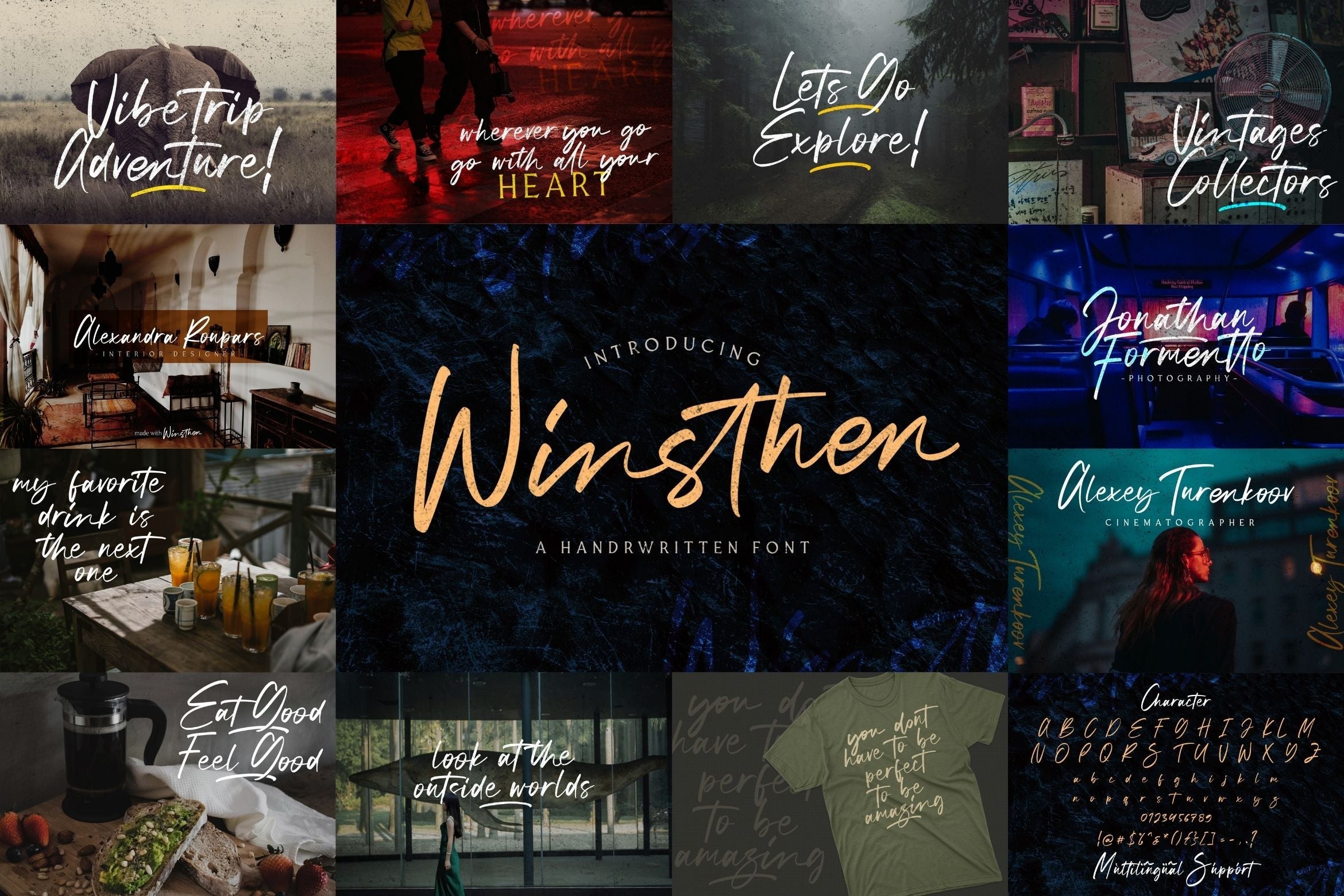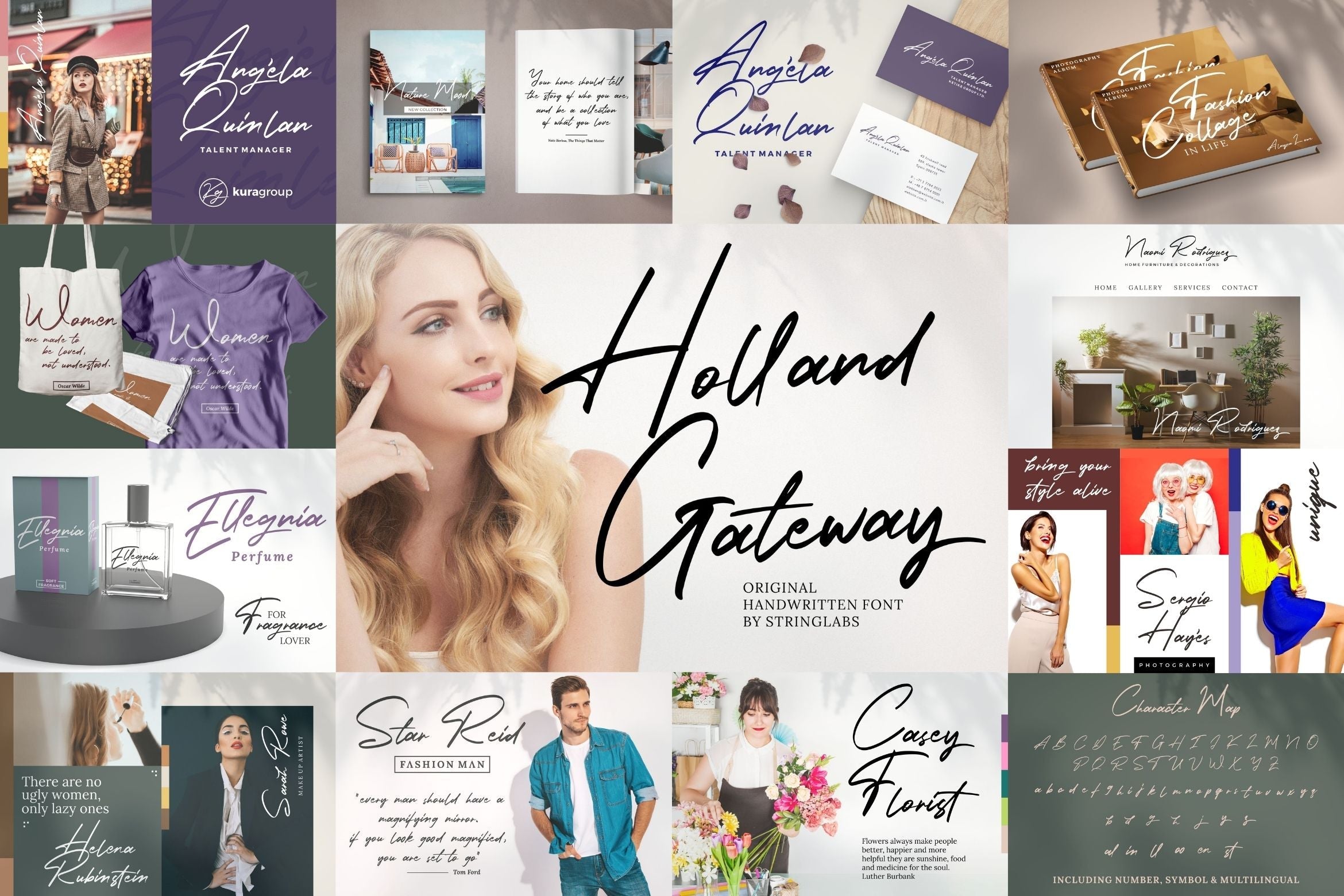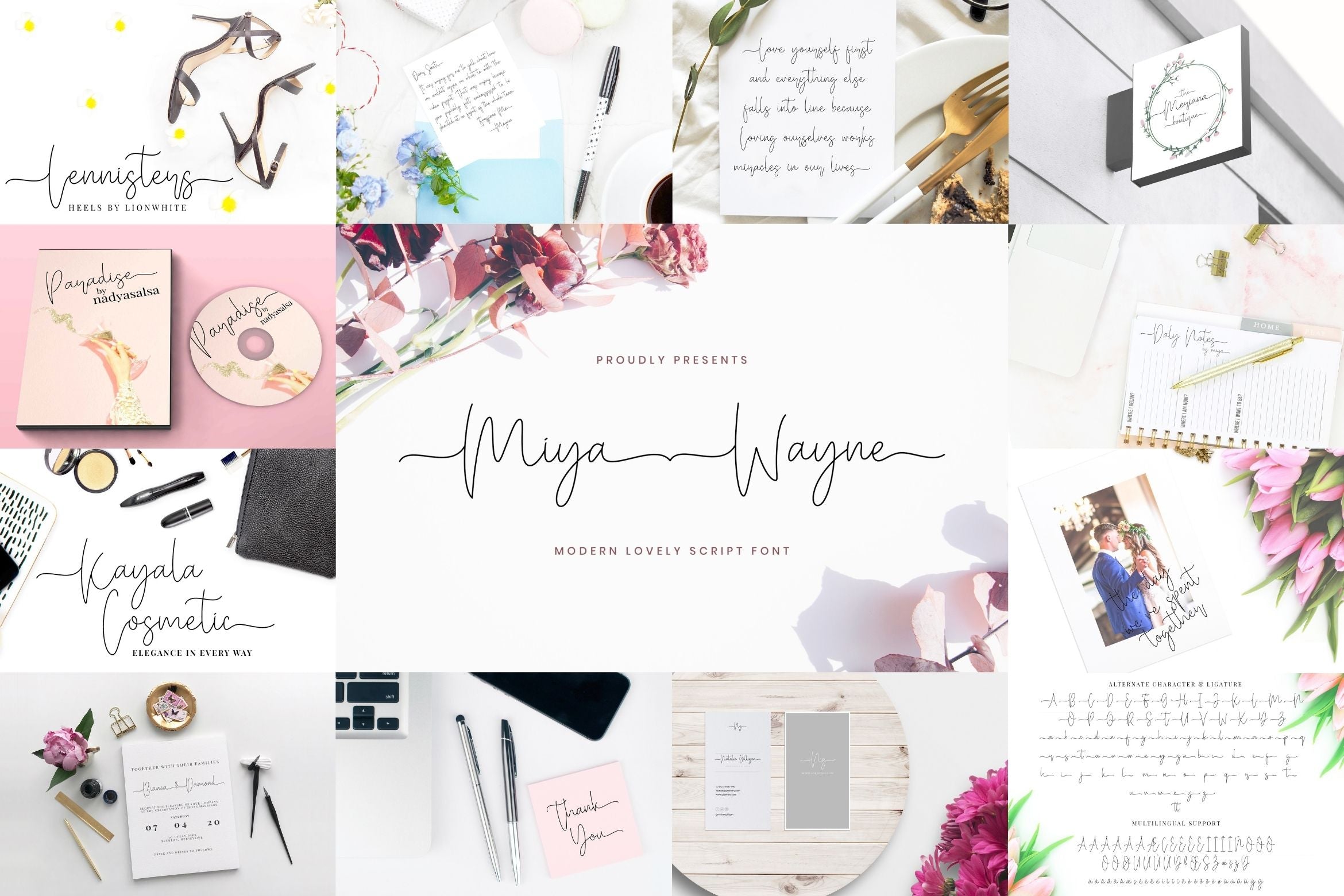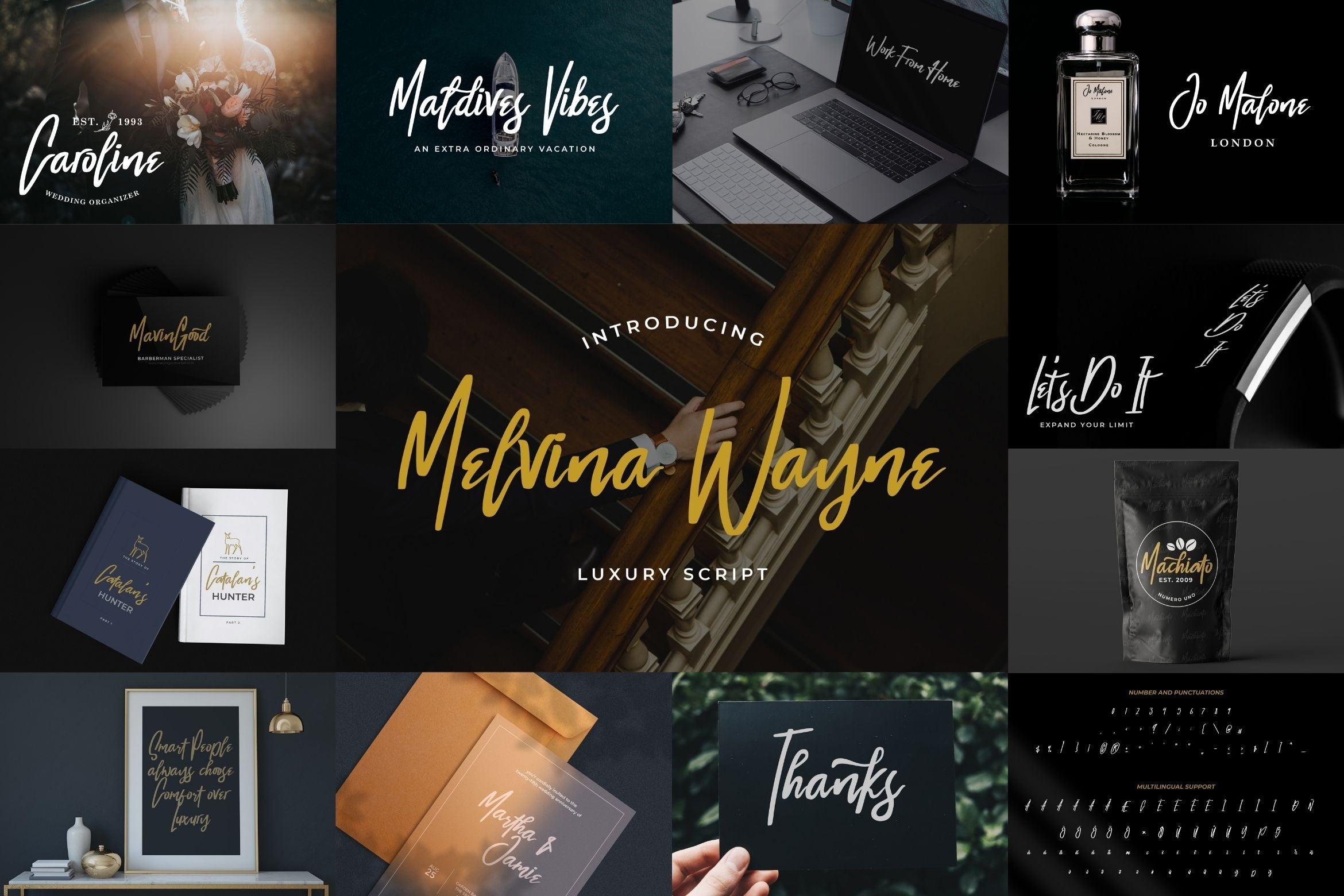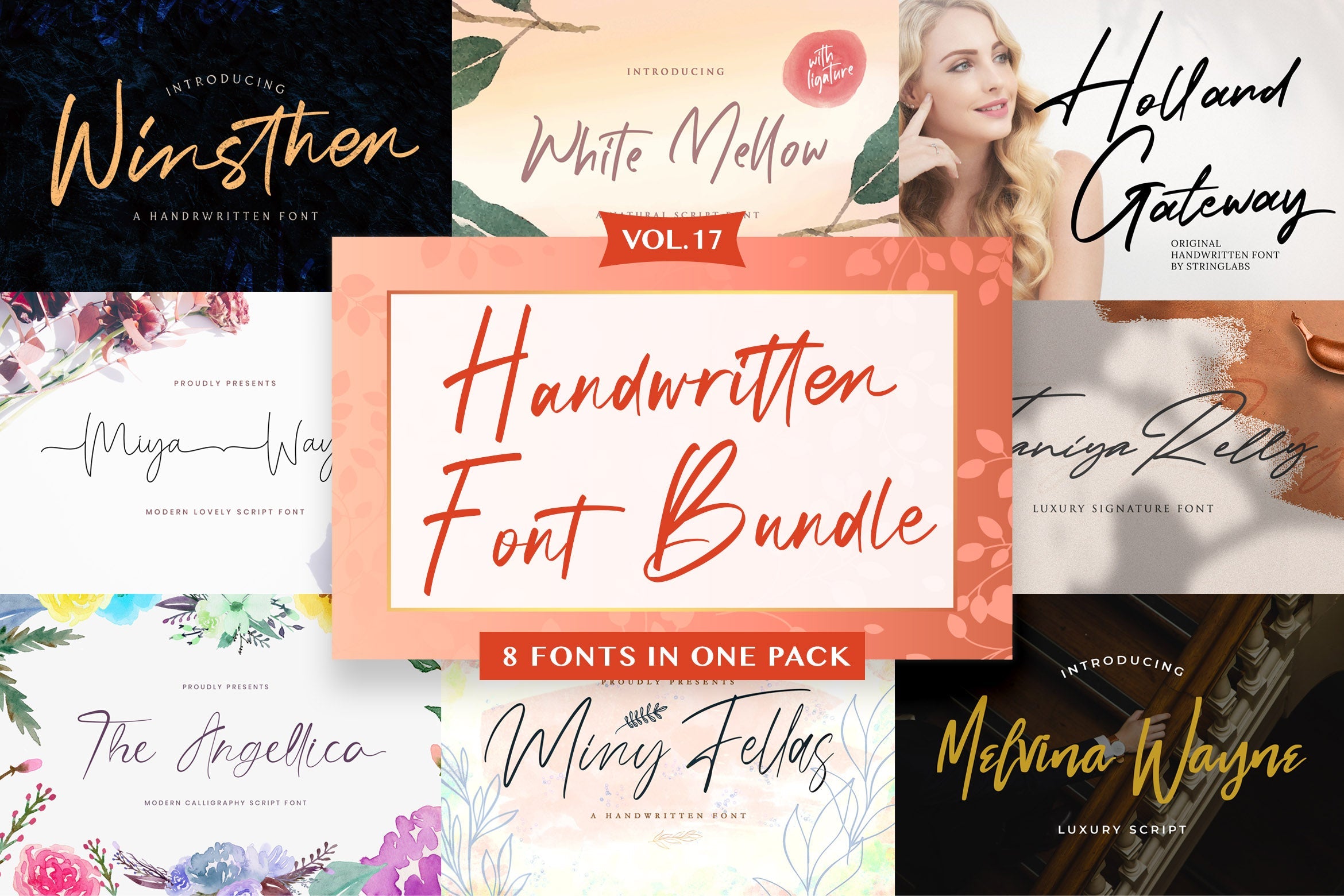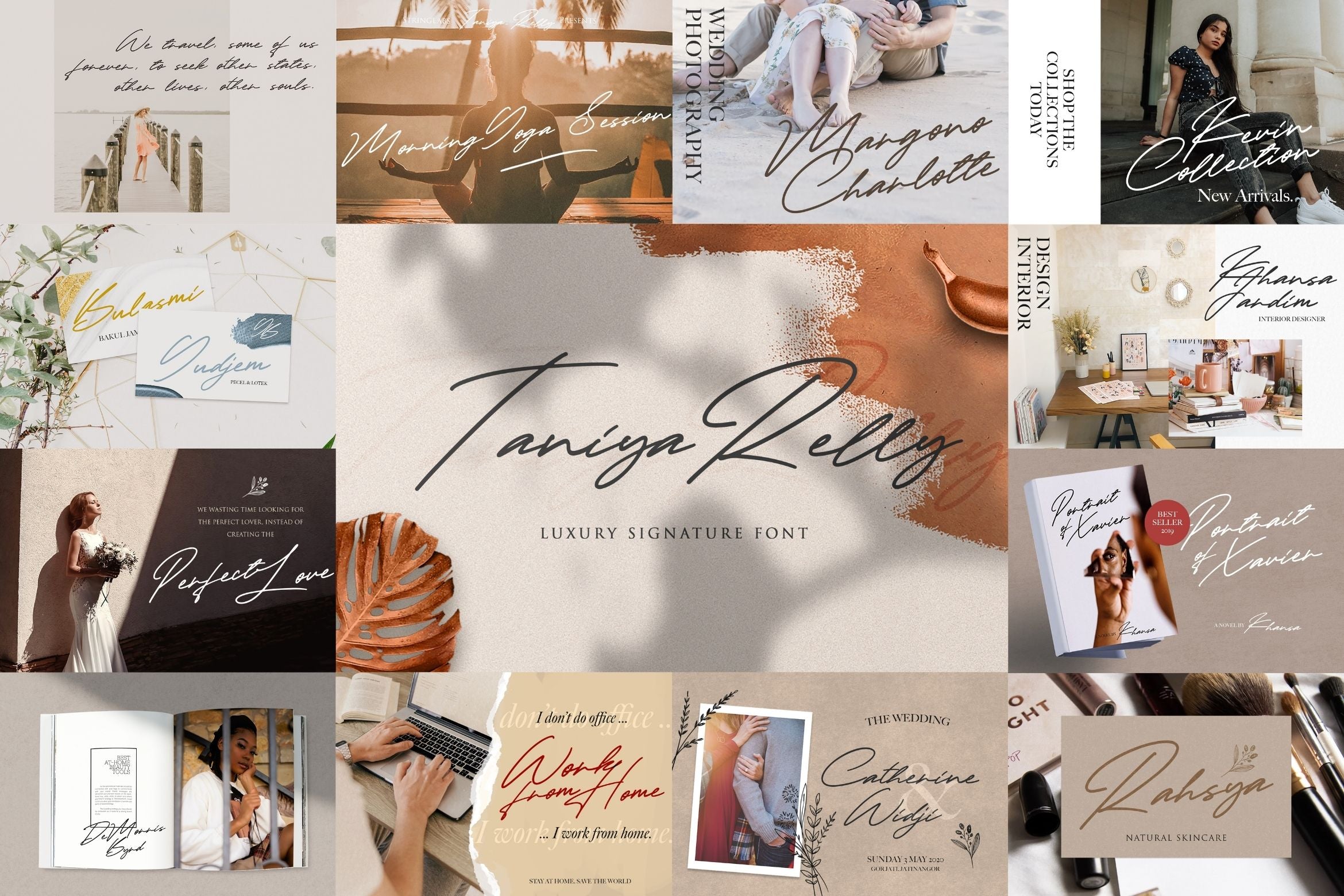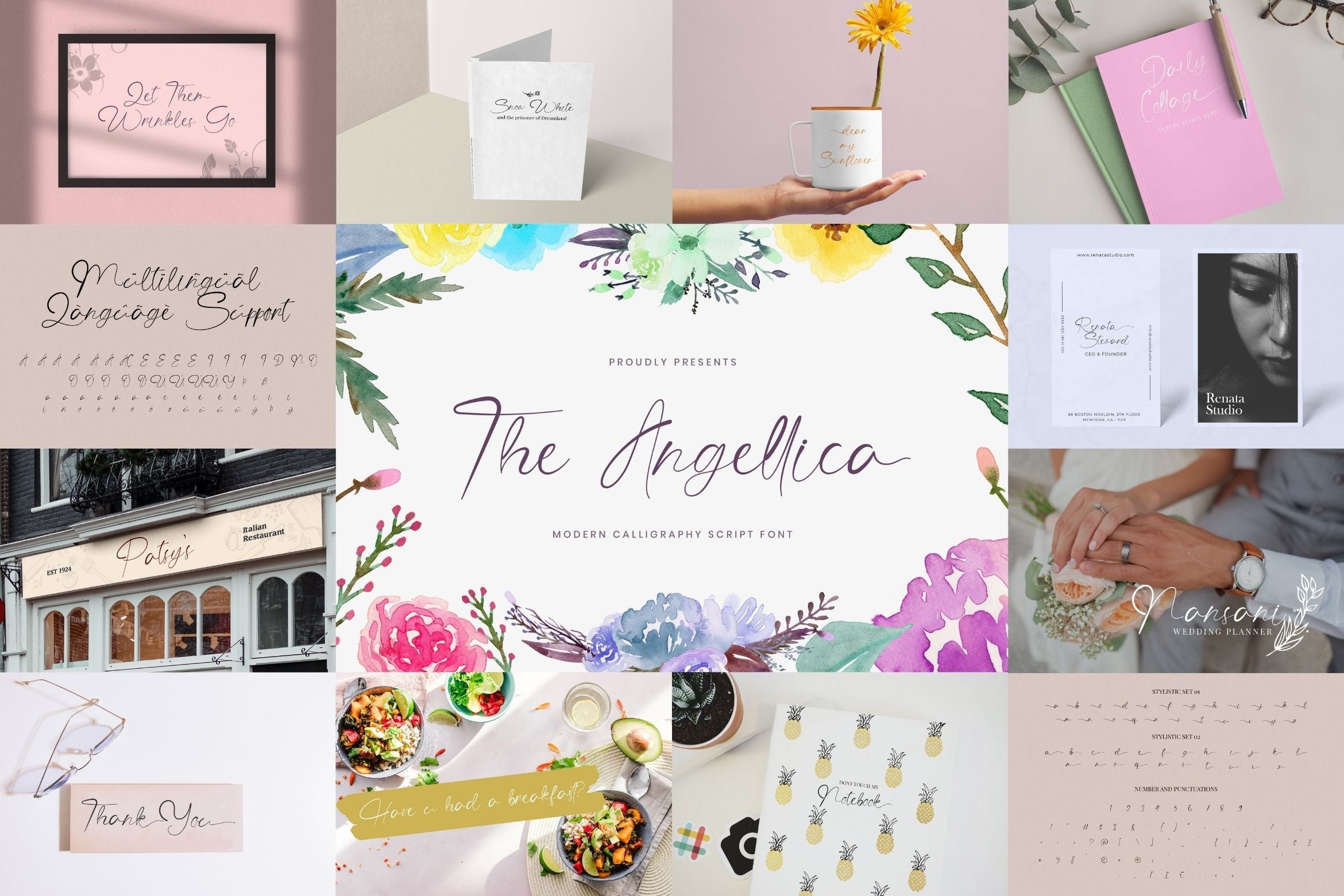
Handwritten Font Bundle Vol 17
About Handwritten Font Bundle Vol 17
Handwritten Font Bundle Vol 17 is a delicate, elegant and flowing handwritten font. This font bundle contains 8 high quality handwritting script font, it will look simply magical in a wide range of design projects, and also that will look particularly adept when used in logos, branding, packaging design, and much more. It has beautiful and well balanced characters and as a result, it matches a wide pool of designs. Add it to your most creative ideas and notice how it makes them come alive! FONTS INCLUDED : 1. Winsthen 2. Taniya Relly 3. Holland Gateway 4. White Mellow 5. Miya Wayne 6. The Angellica 7. Melvina Wayne 8. Miny fellas Fonts available in format : OTF, TTF, WOFF, WOFF2